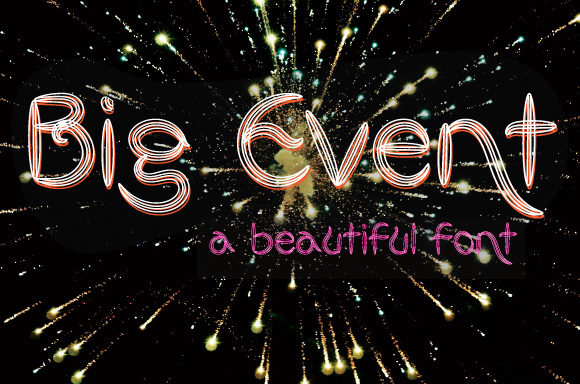
The Big Event Font: A Game-Changer for Your Design Projects
I’ll never forget the time I was working on a project for a high-profile client, and I was struggling to find the perfect font. The client wanted something modern, elegant, and eye-catching, but I just couldn’t seem to find a font that fit the bill. That was until I stumbled upon the Big Event font. ✨ It was love at first sight! The clean lines, the sophisticated feel, and the versatility of this font made it an instant winner in my book.
An Honest Review of Big Event
• Modern and sleek design: Big Event is a beautifully crafted font that exudes modernity and sophistication.
• Highly versatile: Whether you’re working on a logo, a brochure, or a social media post, Big Event can adapt to any design style.
• Easy to read: Despite its elegant feel, Big Event is surprisingly easy to read, even at smaller font sizes.
• OpenType features: Big Event comes with a range of OpenType features, including stylistic alternates and glyphs, which can add an extra layer of creativity to your designs.
While Big Event is an amazing font, it’s not perfect. Here are a few things to keep in mind:
• ⚠️ Limited use in body text: While Big Event is easy to read, it’s not the best choice for long blocks of body text. It’s better suited for headings and titles.
• 🤔 Some characters may not work well in all contexts: As with any font, some characters may not work well in all contexts. For example, the font’s elegant feel may not be suitable for very small font sizes or certain design styles.
The Backstory Behind Big Event
Big Event was designed by a team of talented typographers who wanted to create a font that would be both modern and elegant. The font was inspired by the classic typography of the 20th century, but with a modern twist. The designers wanted to create a font that would be versatile and easy to use, making it perfect for a wide range of design projects.
Font Name Big Event Font
Author Dedi Art Studio
Q: What is Big Event font?
A: Big Event is a modern decorative font that’s perfect for designs that need a touch of elegance. Its clean lines, sophisticated feel, and versatility make it a great choice for headings, titles, and short blocks of text.
Q: Is Big Event easy to read?
A: Yes, Big Event is surprisingly easy to read, even at smaller font sizes. However, it’s best suited for headings and titles rather than long blocks of body text.